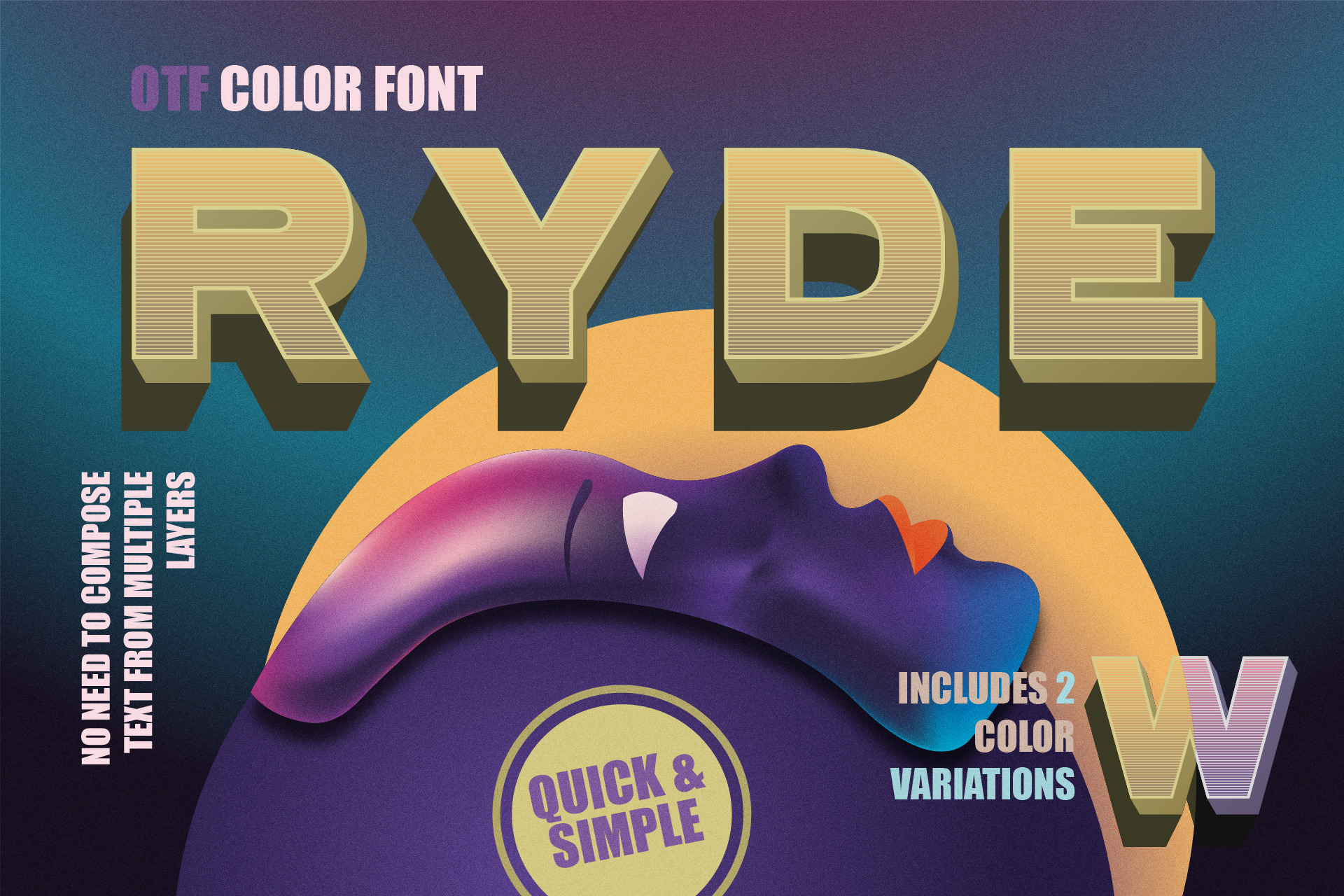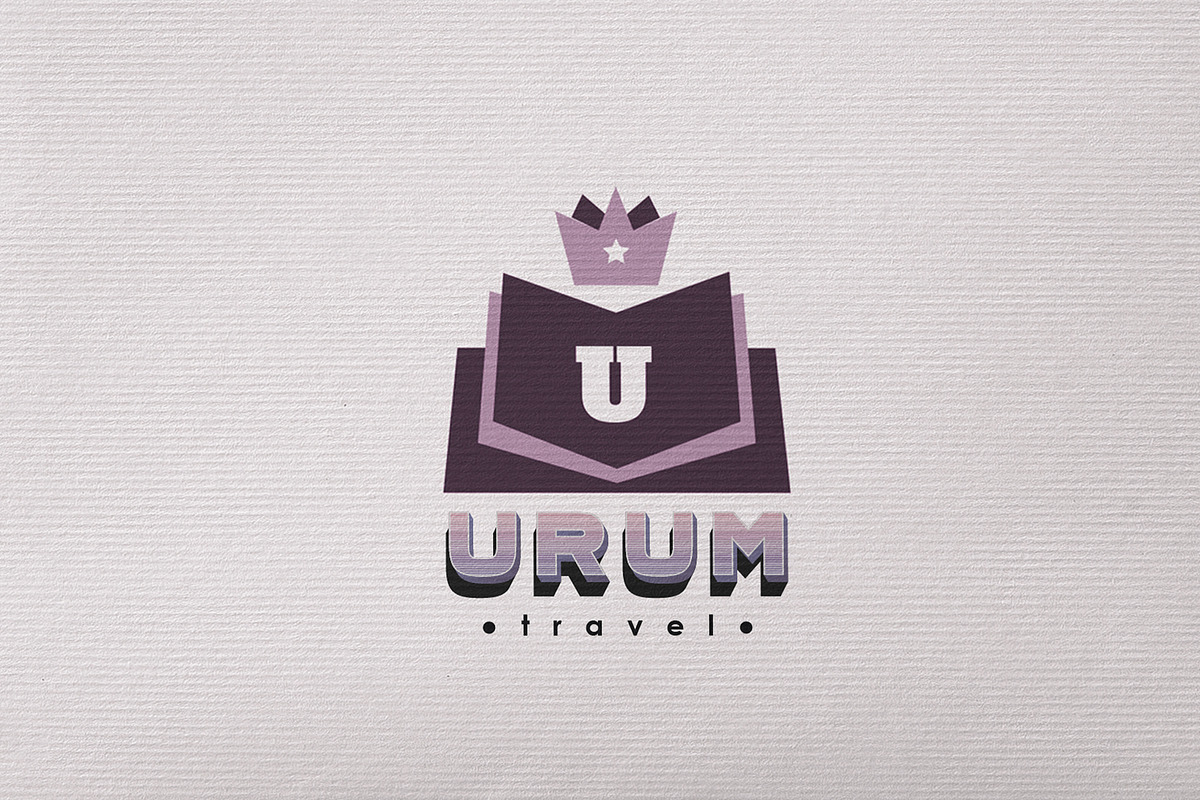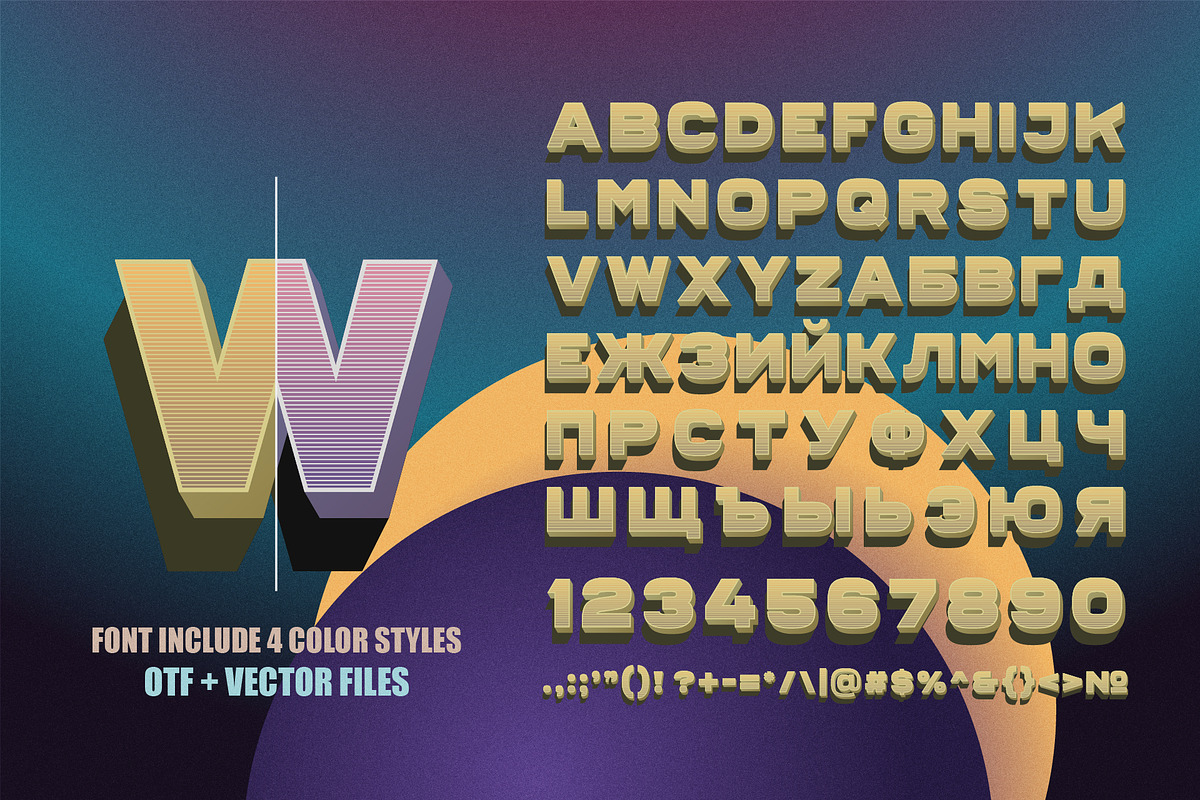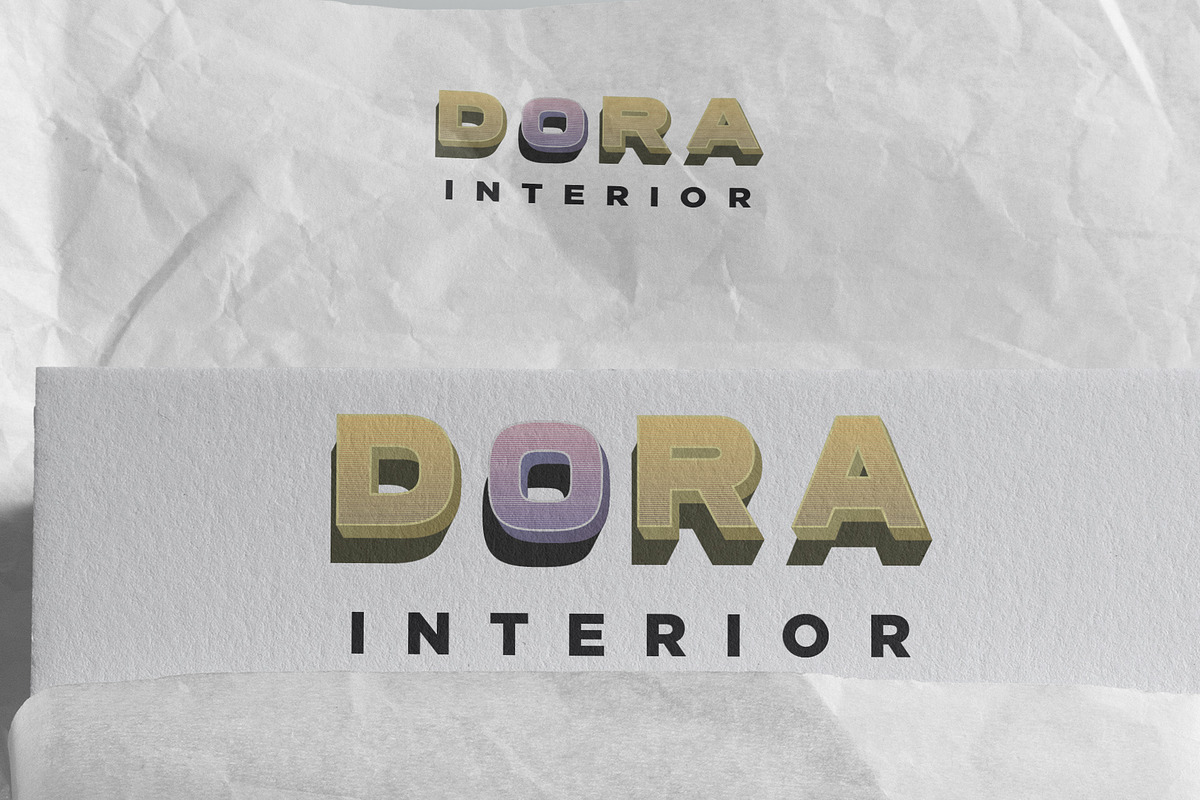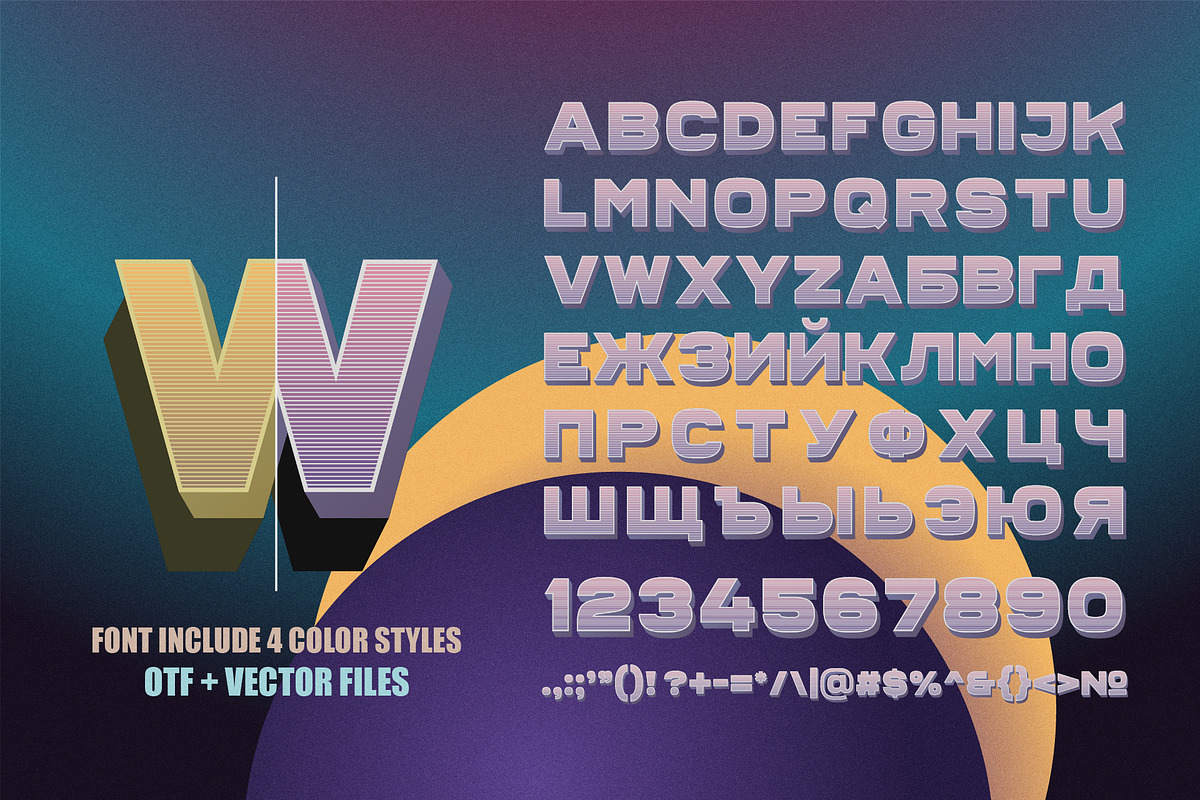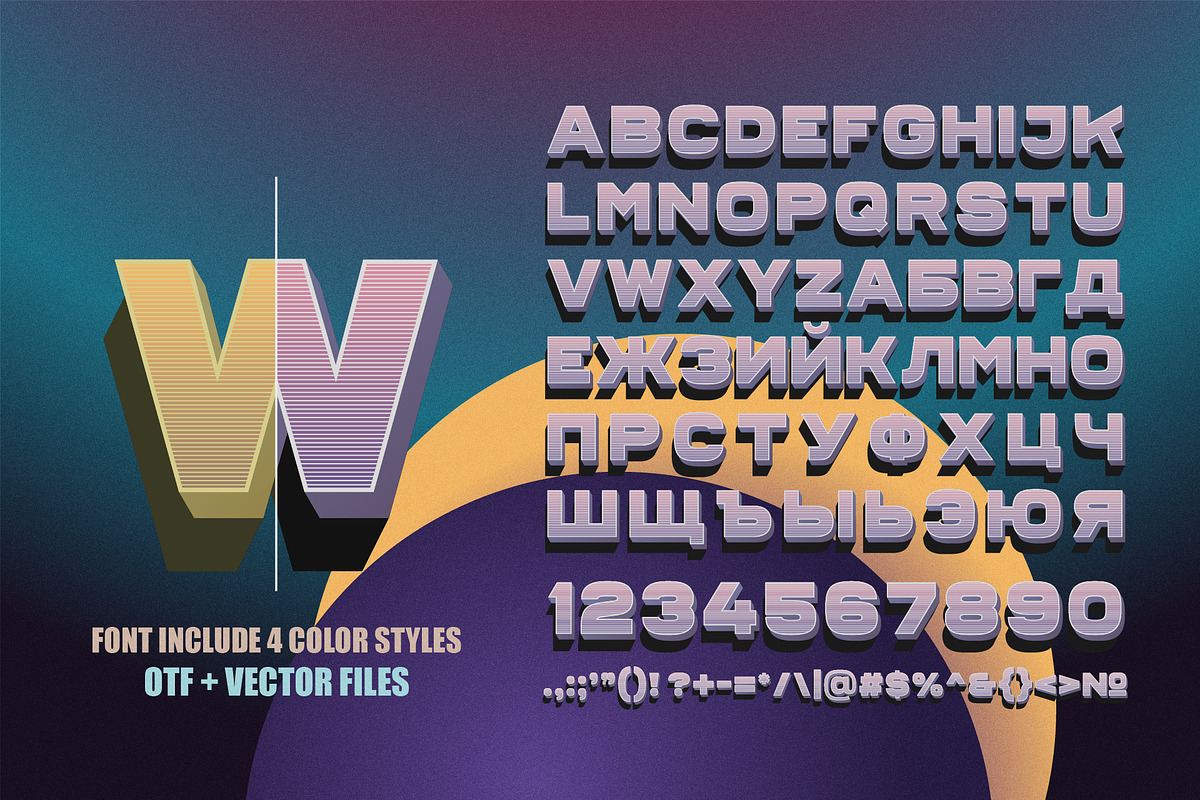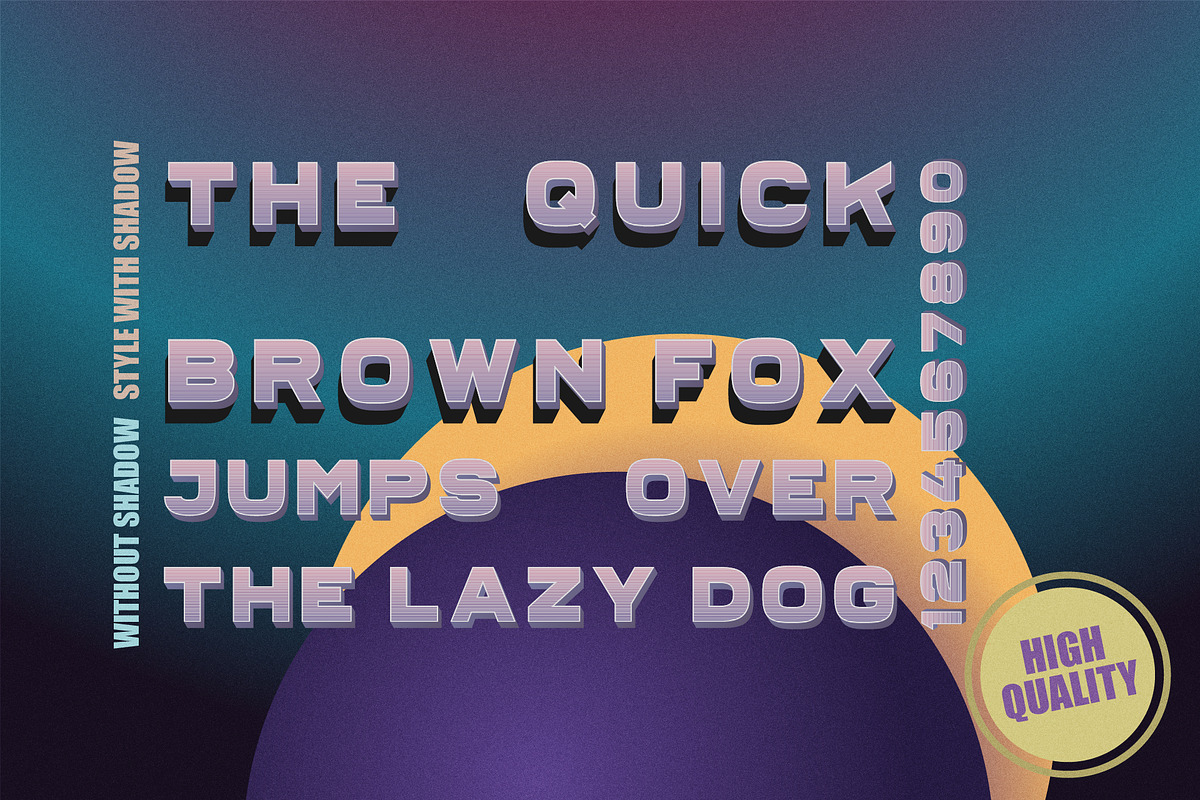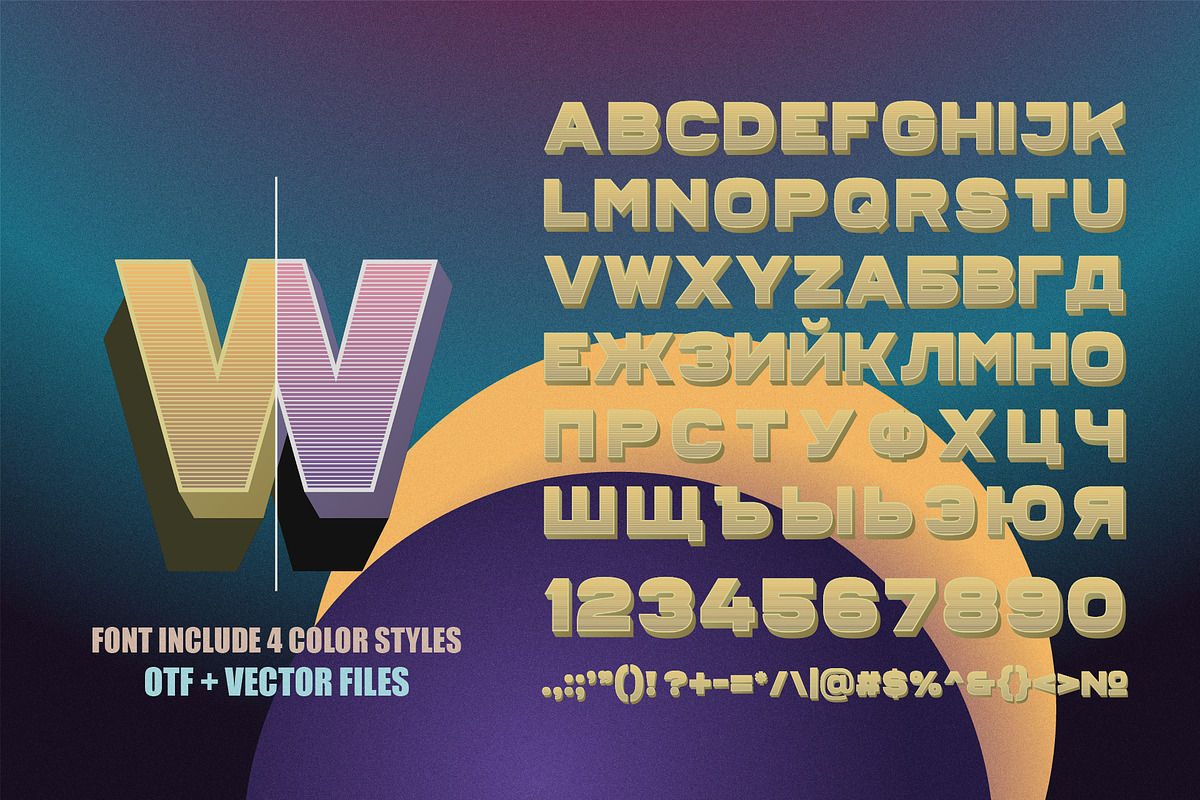
Ryde - sans serif color font
🌿 Introducing the Ryde - uppercase sans serif font. 👑
This is a brand, stylish, expressive and cool font ready to give your design a unique look.
• Sans serifs
• All uppercase display, numerals & punctuation
• Ryde-CleanGold
• Ryde-CleanPurple
• Ryde-FullGold
• Ryde-FullPurple